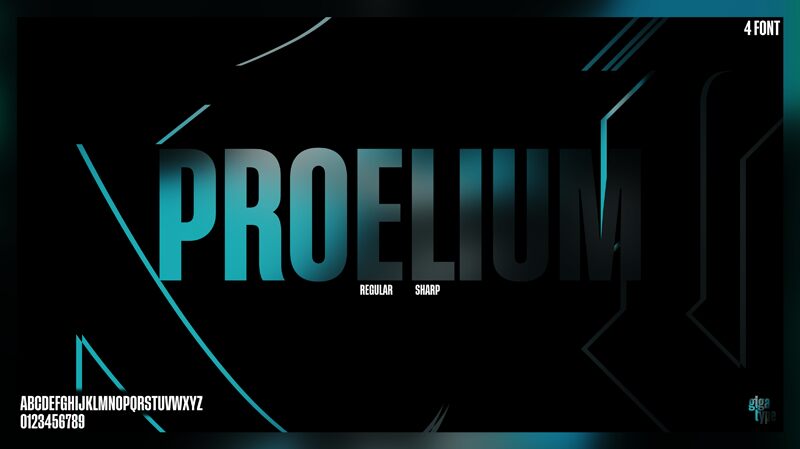
GT Proelium Italic
GT Proelium Italic font, designed by GigaType, is a sans serif font that exudes a modern and strong impression. With its bold, condensed style, this font is perfect for making an impactful appearance in your design projects. It has an assertive mood and powerful aesthetic that immediately draws attention. This free condensed font offers no additional glyphs or uncertain information.
Highly suitable for display purposes, GT Proelium Italic can be used as the main text or header text in various contexts. It should work well in websites and blogs; branding and visual identity work; social media posts and adverts; posters, banners, flyers; T-shirts; book titles and covers; magazines’ most important titles.